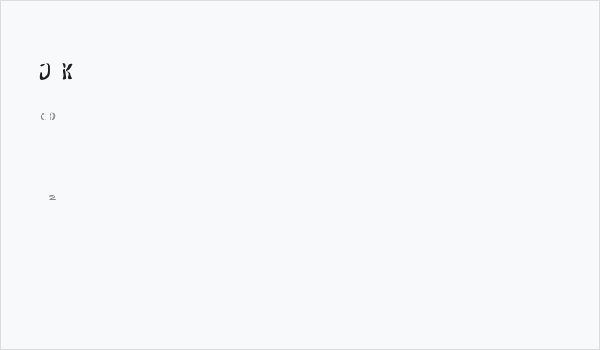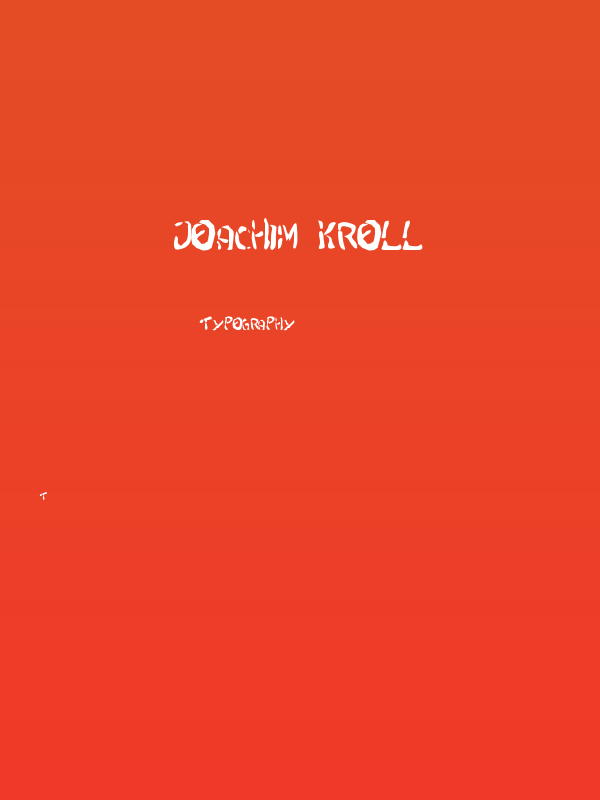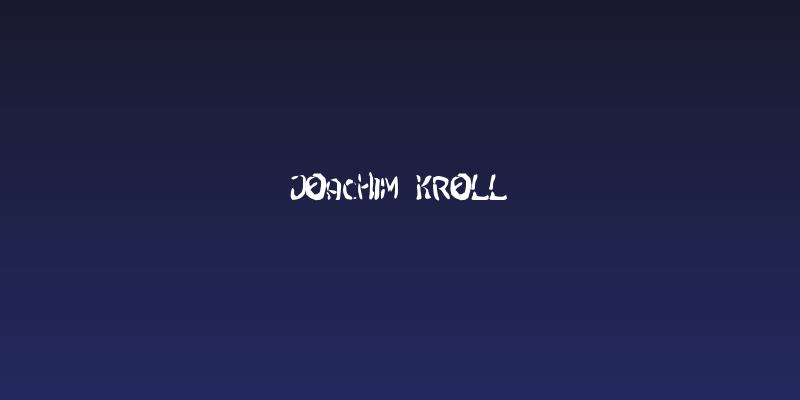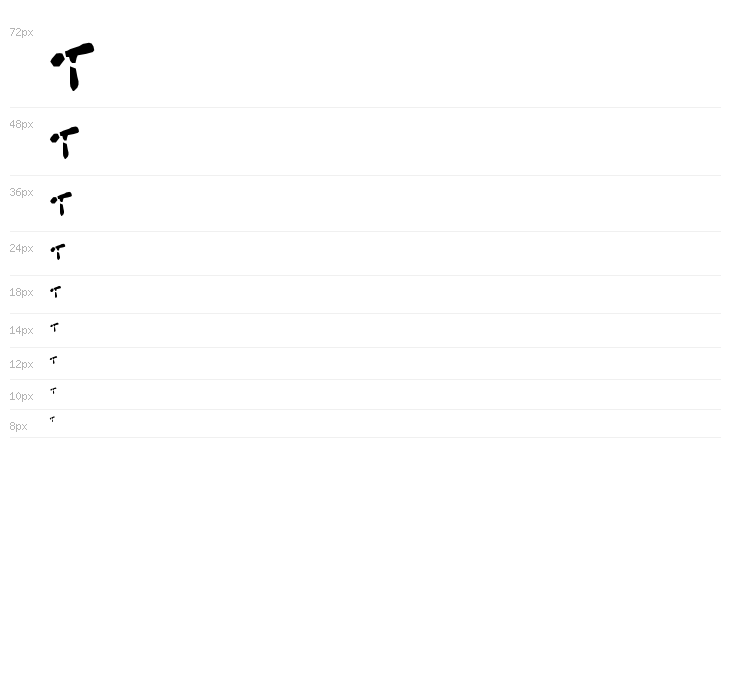
Joachim Kroll Font
Joachim Kroll Description
This font features a bold and artistic design with a unique, irregular pattern that gives it a hand-crafted appearance. The letters have a playful and dynamic form, with varying thicknesses and a slightly distorted look that adds character and movement. The uppercase letters are particularly striking, with a bold presence that makes them stand out. The font's style is reminiscent of graffiti or street art, making it ideal for projects that require a creative and unconventional touch. The overall design is both modern and edgy, perfect for capturing attention and making a statement.
| Overall Style | Modern, Edgy |
| Proposed Projects | Ideal for street art designs, creative posters, edgy branding, and unique logo creation. |